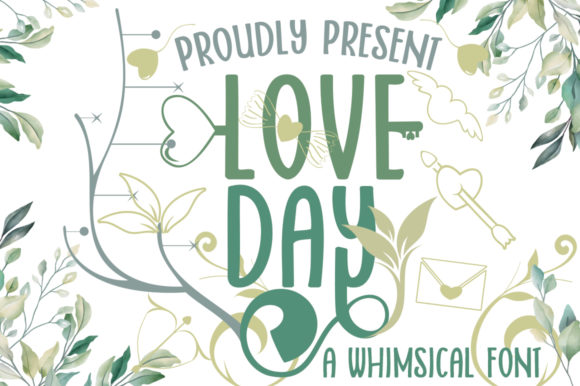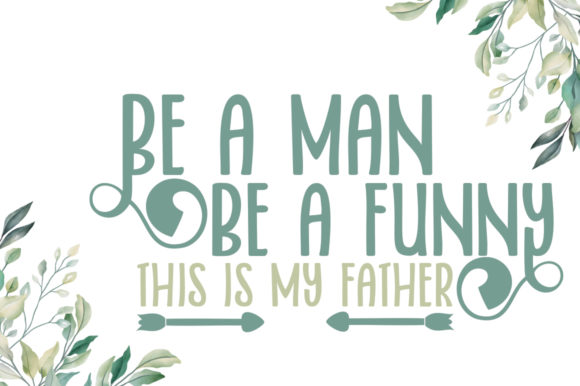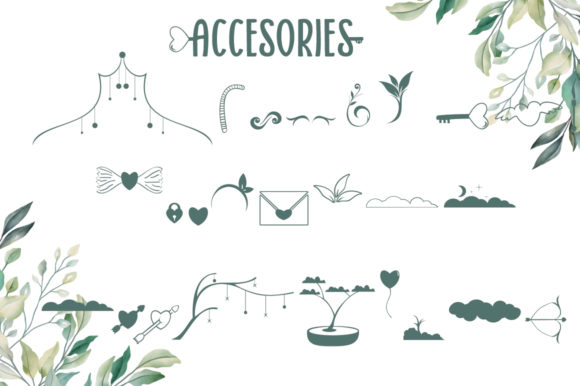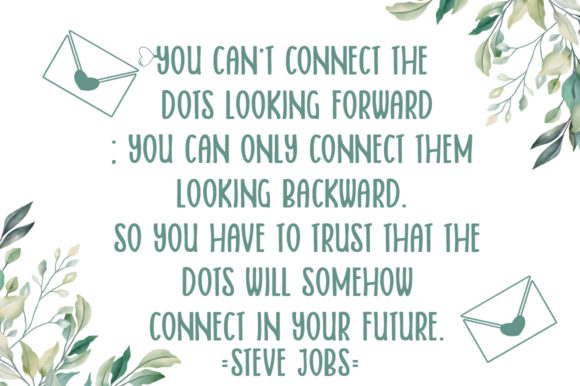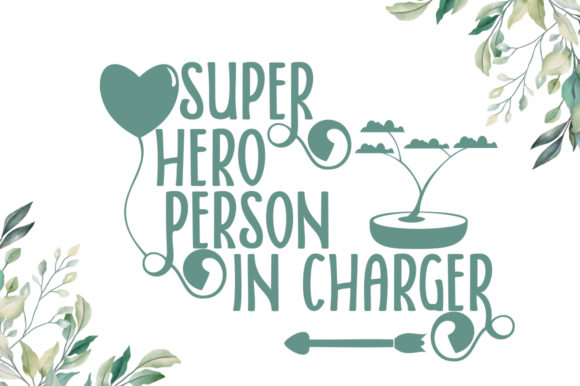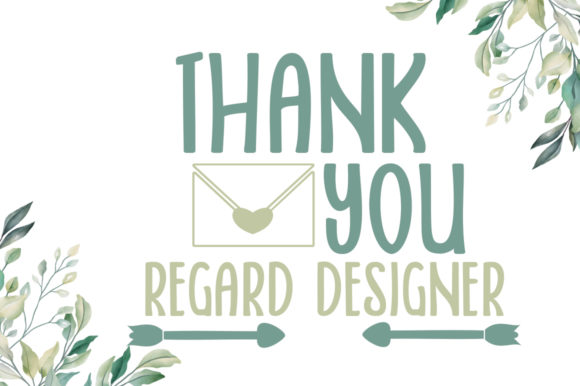
Love Day Font
About Love Day Font
Love Day is a gorgeous handwritten font. It comes with unique alternates and swashes that will add a romantic touch to any crafting project! This font is PUA encoded which means you can access all of the amazing glyphs and swashes with ease! It also features a wealth of special features including alternate glyphs and ligatures.